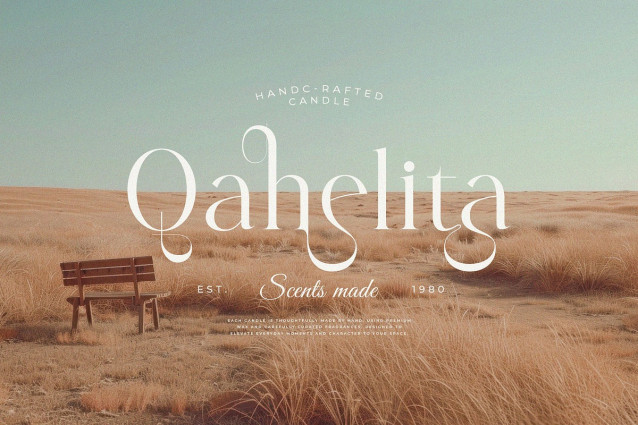
Gialita Font
Gialita Font is a stylish and modern display serif font that blends graceful curves with a playful yet elegant presence. This typeface is meticulously designed to deliver a unique typographic personality through artistic strokes, high contrast lines, and fluid ligatures. The subtle sophistication and contemporary charm of Gialita make it a standout choice for modern branding, creative headlines, and editorial layouts.
Crafted for designers who appreciate aesthetics and precision, Gialita excels in both digital and print contexts. Its decorative serifs, ligature alternates, and sophisticated details ensure that your designs remain expressive while maintaining elegance and readability.